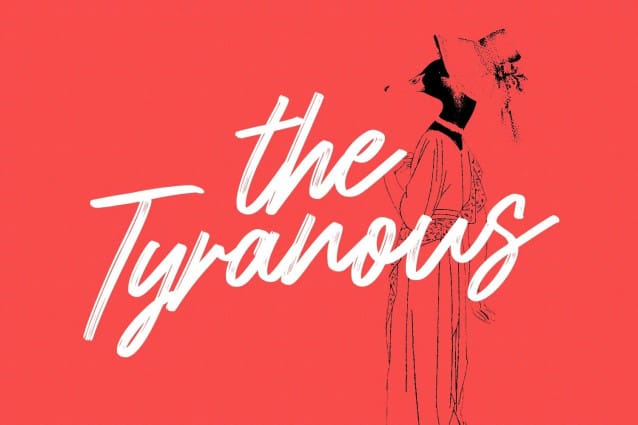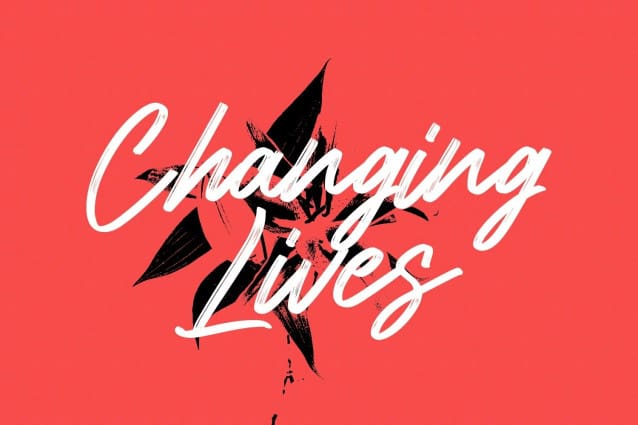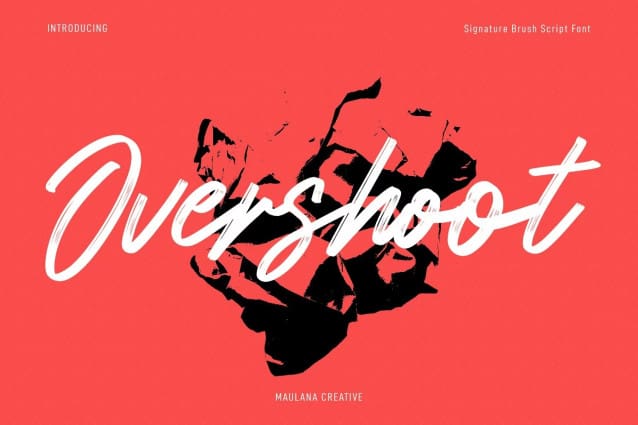
Overshoot Brush Font
Overshoot Brush Font is an slanted brush style script font. With regular smooth brush stroke, fun character with a bit of ligatures and alternates. To give you an extra creative work. Overshoot font support multilingual more than 100+ language. This font is good for logo design, Social media, Movie Titles, Books Titles, a short text even a long text letter and good for your secondary text font with sans or serif. Make a stunning work with Overshoot Brush font.